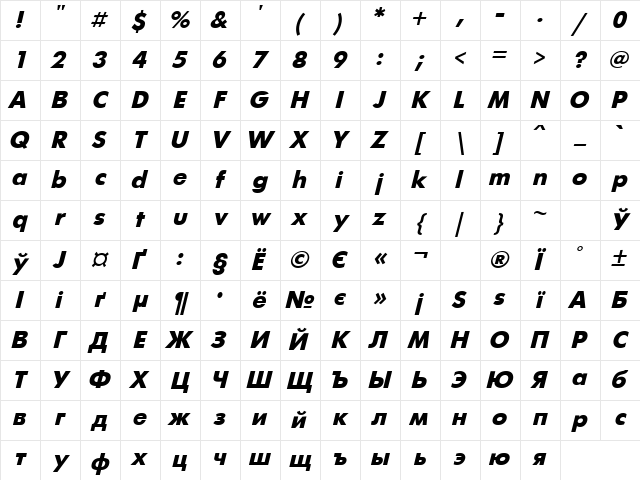
UkrainianFuturis BoldItalic
Design Context for UkrainianFuturis
UkrainianFuturis has a distinctly futuristic character, with geometric precision and clean angles that feel at home in technology, gaming, and sci-fi contexts. The slanted form adds forward momentum and visual energy. Its bold stroke weight gives it real presence on the page.